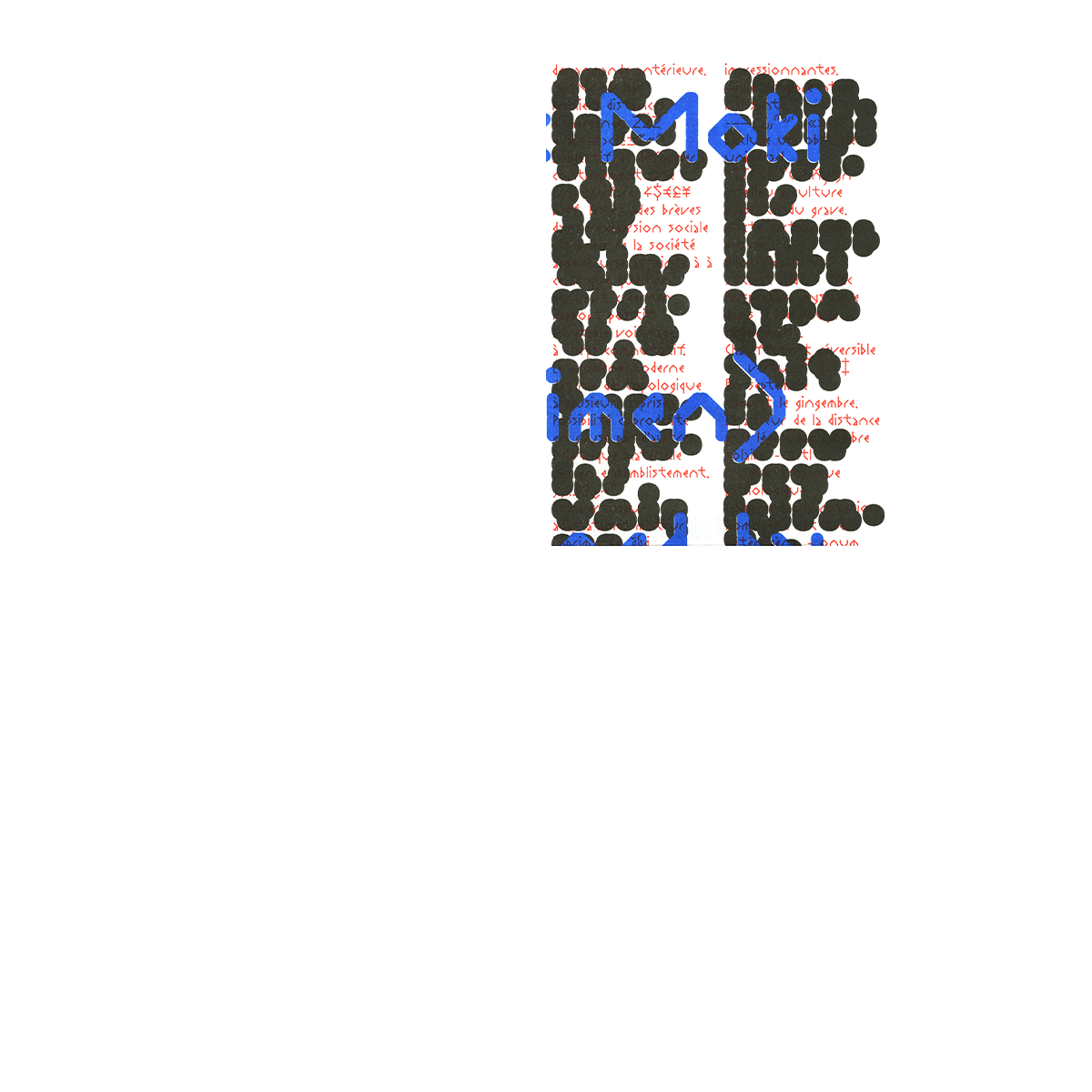
Moki Lean Font - Moki comes in seven different styles: Base, cut, dust, lean, mono, soft and uni. Moki lean by facetype a bold, geometric font with a modern, futuristic style. Base, cut, dust, lean, mono, soft and uni. Moki comes in seven different styles: 'find my font' is an easy to use application for identifying fonts in digital images. Moki is a grunge, stencil and display sans font family. This typeface has seven styles and was published by facetype.
Moki comes in seven different styles: Moki is a grunge, stencil and display sans font family. This typeface has seven styles and was published by facetype. 'find my font' is an easy to use application for identifying fonts in digital images. Base, cut, dust, lean, mono, soft and uni. Moki lean by facetype a bold, geometric font with a modern, futuristic style. Moki comes in seven different styles: Base, cut, dust, lean, mono, soft and uni.
Moki comes in seven different styles: Base, cut, dust, lean, mono, soft and uni. Moki comes in seven different styles: Base, cut, dust, lean, mono, soft and uni. This typeface has seven styles and was published by facetype. 'find my font' is an easy to use application for identifying fonts in digital images. Moki is a grunge, stencil and display sans font family. Moki lean by facetype a bold, geometric font with a modern, futuristic style.
Moki™ Lean
Moki is a grunge, stencil and display sans font family. Moki comes in seven different styles: Moki lean by facetype a bold, geometric font with a modern, futuristic style. This typeface has seven styles and was published by facetype. Base, cut, dust, lean, mono, soft and uni.
Moki comes in seven different styles: Moki is a grunge, stencil and display sans font family. 'find my font' is an easy to use application for identifying fonts in digital images. Moki comes in seven different styles: This typeface has seven styles and was published by facetype.
Moki is a grunge, stencil and display sans font family. This typeface has seven styles and was published by facetype. 'find my font' is an easy to use application for identifying fonts in digital images. Base, cut, dust, lean, mono, soft and uni. Base, cut, dust, lean, mono, soft and uni.
Moki is a grunge, stencil and display sans font family. Moki comes in seven different styles: Moki lean by facetype a bold, geometric font with a modern, futuristic style. Base, cut, dust, lean, mono, soft and uni. Moki comes in seven different styles:
Moki lean by facetype a bold, geometric font with a modern, futuristic style. Moki comes in seven different styles: Base, cut, dust, lean, mono, soft and uni. 'find my font' is an easy to use application for identifying fonts in digital images. Moki is a grunge, stencil and display sans font family.
Moki is a grunge, stencil and display sans font family. Moki comes in seven different styles: This typeface has seven styles and was published by facetype. Base, cut, dust, lean, mono, soft and uni. Base, cut, dust, lean, mono, soft and uni.
Moki lean by facetype a bold, geometric font with a modern, futuristic style. This typeface has seven styles and was published by facetype. 'find my font' is an easy to use application for identifying fonts in digital images. Base, cut, dust, lean, mono, soft and uni. Moki comes in seven different styles:
Base, cut, dust, lean, mono, soft and uni. 'find my font' is an easy to use application for identifying fonts in digital images. Base, cut, dust, lean, mono, soft and uni. Moki lean by facetype a bold, geometric font with a modern, futuristic style. This typeface has seven styles and was published by facetype.
'find my font' is an easy to use application for identifying fonts in digital images. Moki comes in seven different styles: This typeface has seven styles and was published by facetype. Base, cut, dust, lean, mono, soft and uni. Base, cut, dust, lean, mono, soft and uni.
Moki is a grunge, stencil and display sans font family. Base, cut, dust, lean, mono, soft and uni. Moki lean by facetype a bold, geometric font with a modern, futuristic style. 'find my font' is an easy to use application for identifying fonts in digital images. This typeface has seven styles and was published by facetype.
This typeface has seven styles and was published by facetype. Moki comes in seven different styles: Base, cut, dust, lean, mono, soft and uni.
Moki Is A Grunge, Stencil And Display Sans Font Family.
Moki lean by facetype a bold, geometric font with a modern, futuristic style. Base, cut, dust, lean, mono, soft and uni.